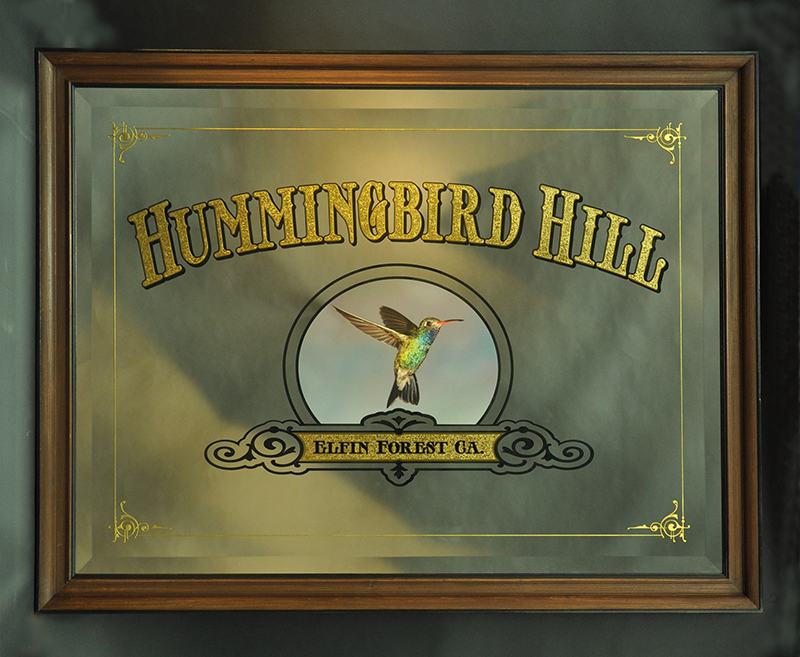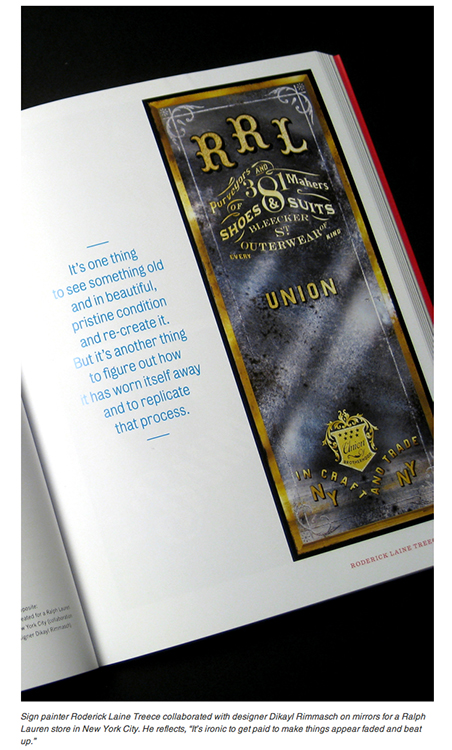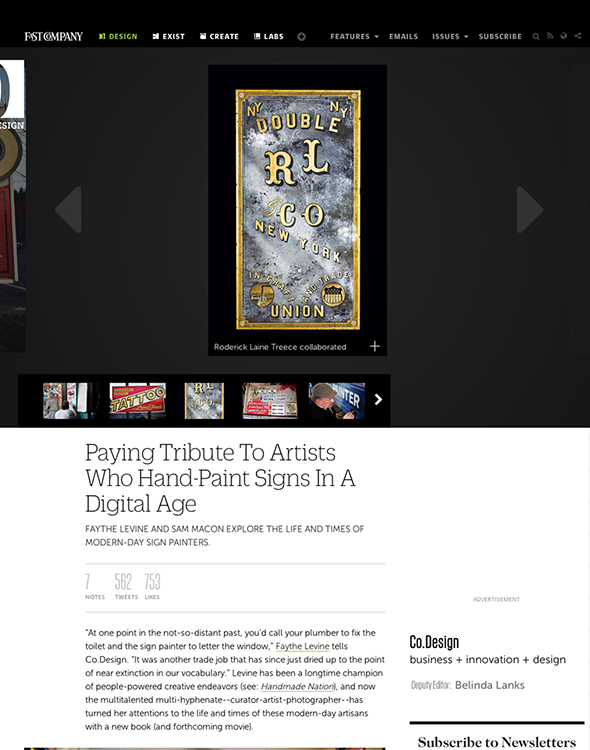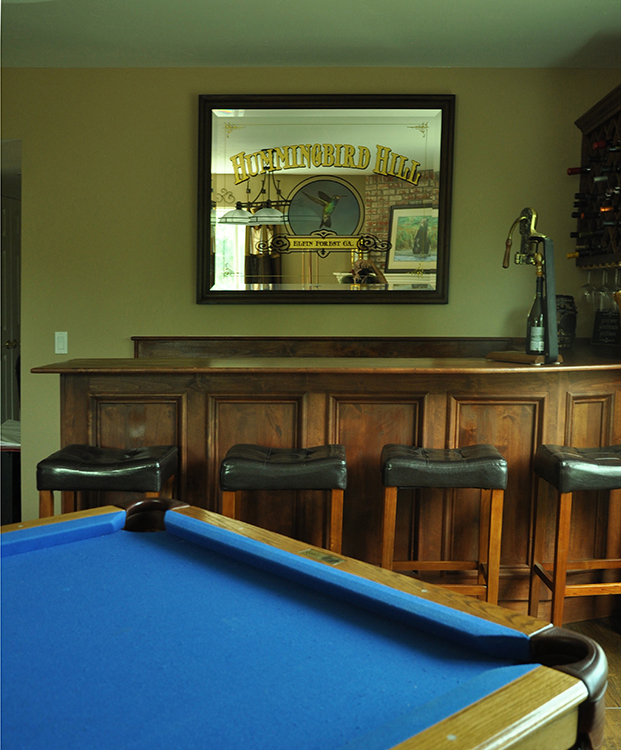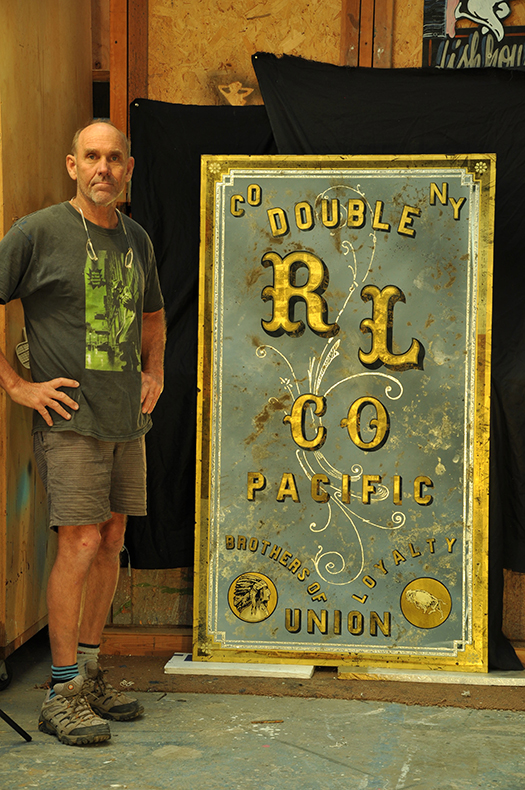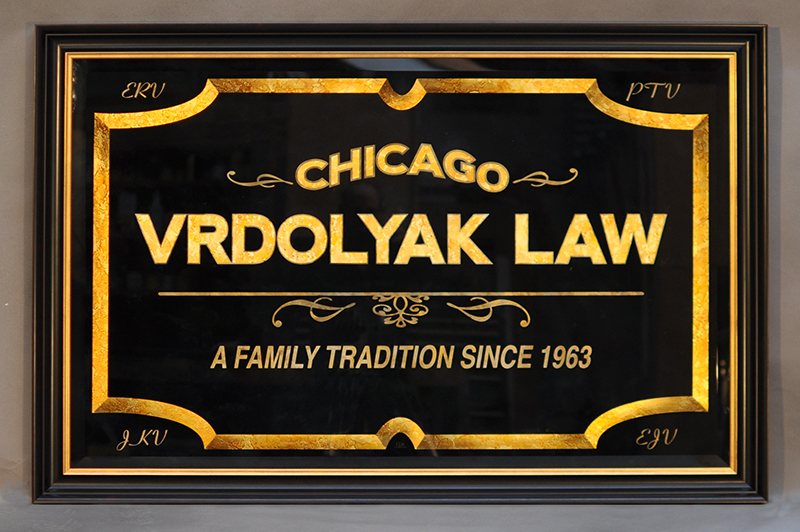
Hi guy's,
It wasn't a lower case i. It's probably the antiquing or a reflection blocking the I. Depending on what the art work looks like ,for instance if it's a large new clear mirrored background I try and use a commercially made mirror to start. It not ever going to get any better than that. Then through a sandblasting and stripping process I've developed I create the lettering and windows for all the other layers to go.
......i don't believe you , you're just making that procedure up..........you're going to have to show us and do a step by step....hahaaaaaaa. it's such nice work rod !....and really, do a photo/youtube step for us to view or buy......nevertheless, thanks for taking the time to post what you do.
Your right Vance, You totally busted me. My secret is watching youtube videos and opening big bags of chips while drinking mask quantities of cheap beer. You would be amazed at all the great bad info you can get on you tube.
I basiclly deep carve sandblast all the outlines and drop shadows first.
Then I take industrial paint stripper and strip out any areas that will have gold lettering and open windows.
Mask of the lettering for the mica stipple acid etch.
Do the acid work.
Take off the mask and clean everything.
Then I paint in the out lines and shadows
Water gild the lettering
Place the print in the window and it's done.
I want to see this 3 minute youtube video of Roderick eating a big bag of chips (Crisps) and drinking a vast quantity of cheap beer.
Sorry I haven't gotten around to the chip vid yet, Here a photo of the mirror all framed up and ready to install tomorrow.
The other two photos are from a few recent articles about the sign painter book. I spoke with a client today in New York that say's the 5th voloume of a hard bound magazine called " Man of the World" is coming on soon with a feature article with the Ralph Lauren mirrors from the sign painter book.
Just installed the mirror in the home of a local client yesterday. I bet all of those clients in New York and New Jersey would love to have that !
Roderick - Great looking glass piece and the perfect atmosphere for it. It really shows well in his man cave/play room.
Here's a photo of yours truly with my latest commission from Ralph Lauren. This one is going to Japan. A big the to New York designer Dikayl Rimmasch for the great design .Such a nice guy to work with as always !
As always - great work
Mind giving a quick overview of how you will 'pack' this for shipping to Japan so it arrives in one piece? Just curious -
Very nice job Rod. Bet it's a real knock out to see in person.
Also noticed the tiny soft subliminal black silhouette emerging from atop the curtain. Hey.... is that Tinkerbell!?
I really admire your work. I guess exquisite is the best word I can think of. I am an amateur sign painter and a professional painter of every thing since I sort of retired.